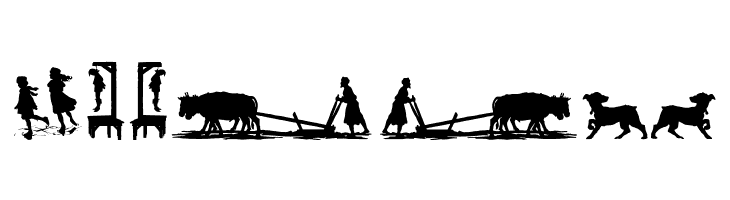
A silhouette-based decorative font with mixed human, animal, and object scenes.
A display font featuring animal and human silhouette illustrations as glyphs.
A decorative symbol font featuring detailed black animal and human silhouettes.
Decorative font featuring detailed animal and nature silhouettes.
A diverse collection of detailed silhouettes depicting various scenes and characters.